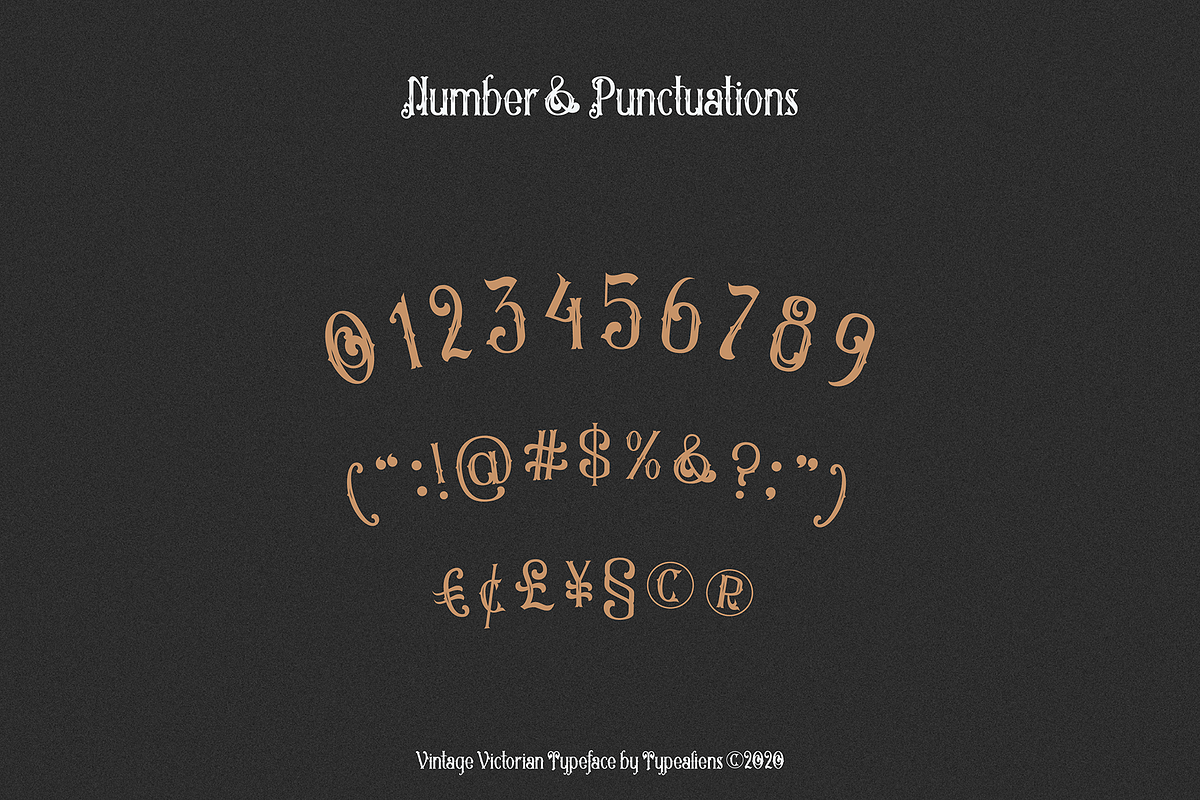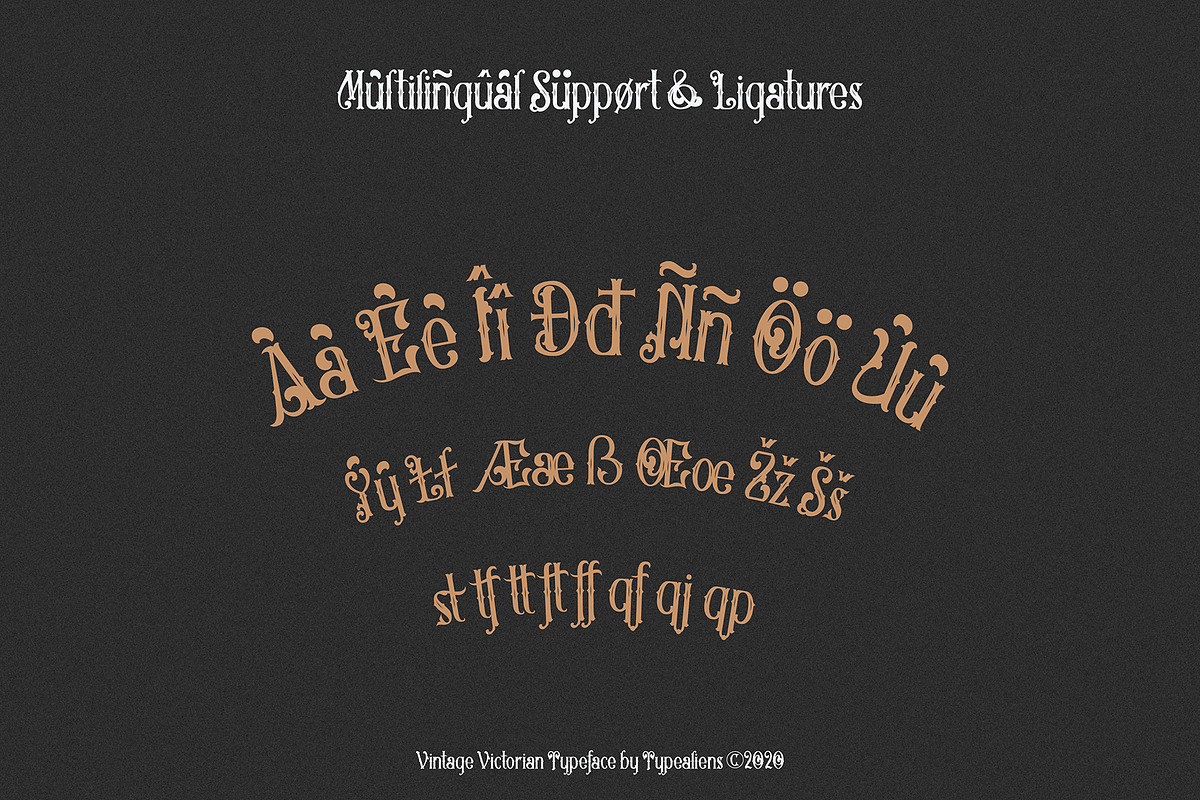
Artisocrat
ARTISOCRAT is a unique victorian classic font with a unique base shape as well and a bit decorative. It is suitable as a display font, logotype, beer label design, liquor label design, badge design etc.